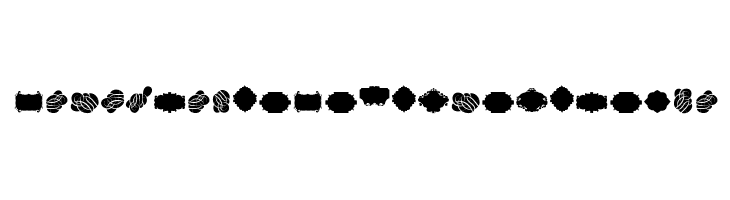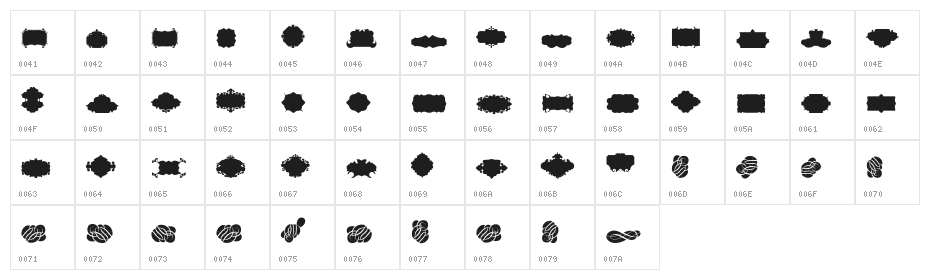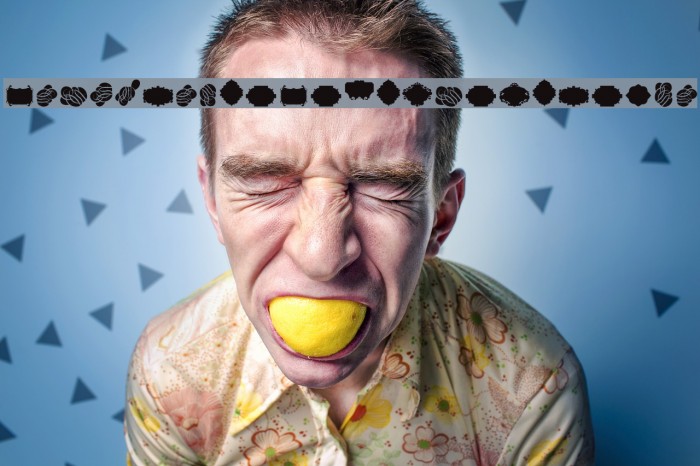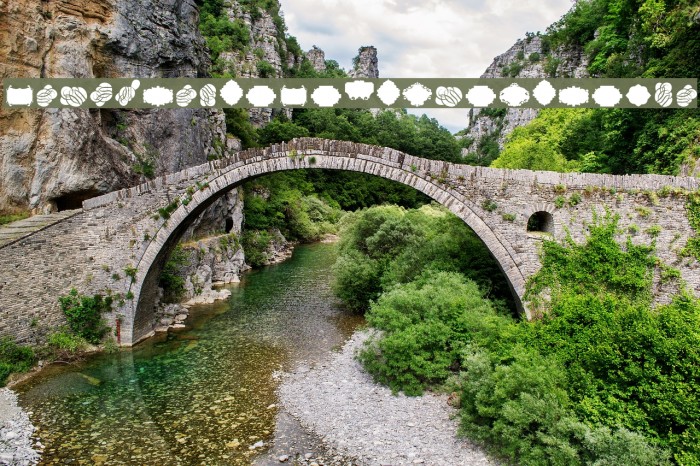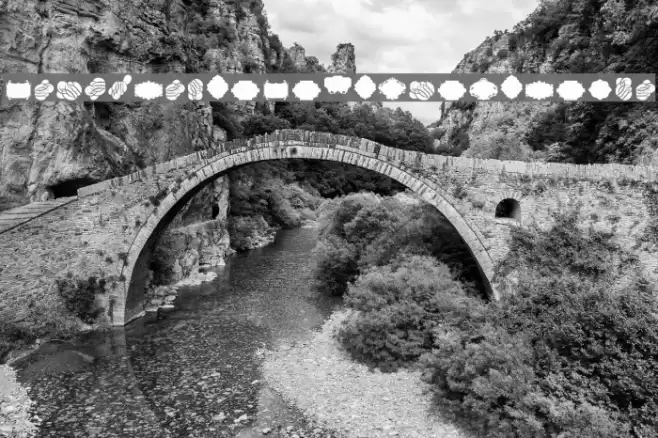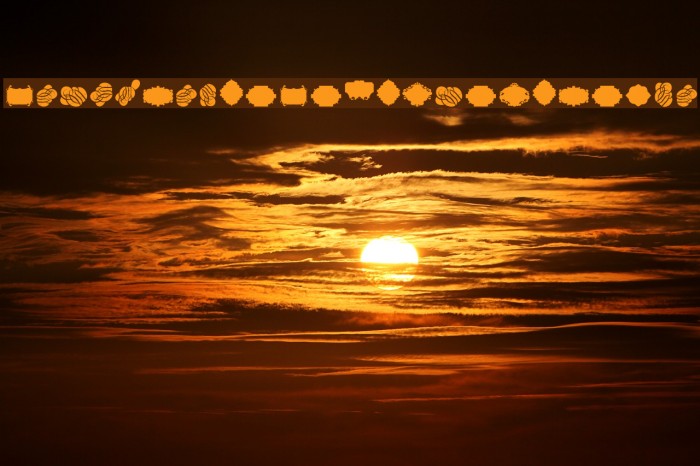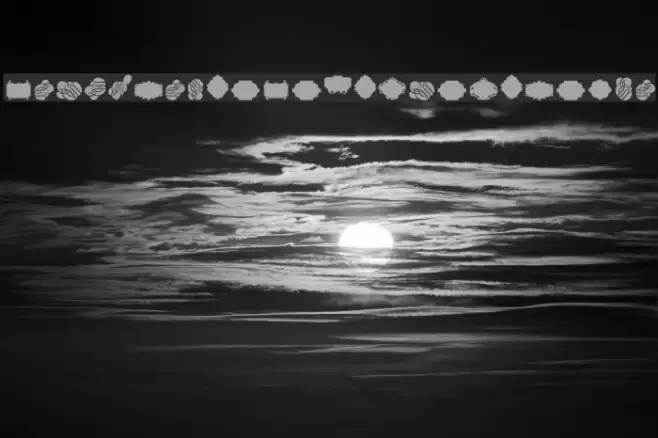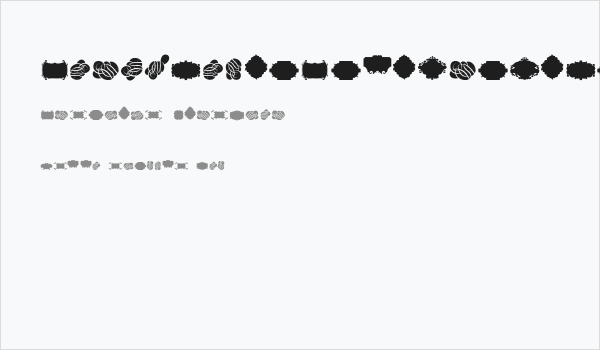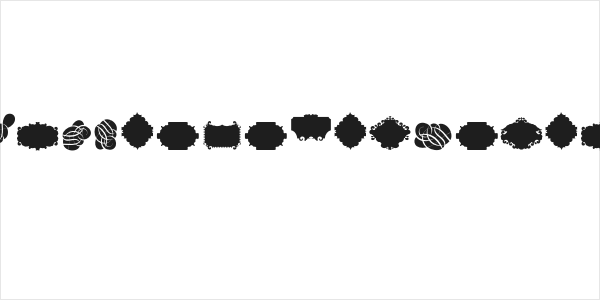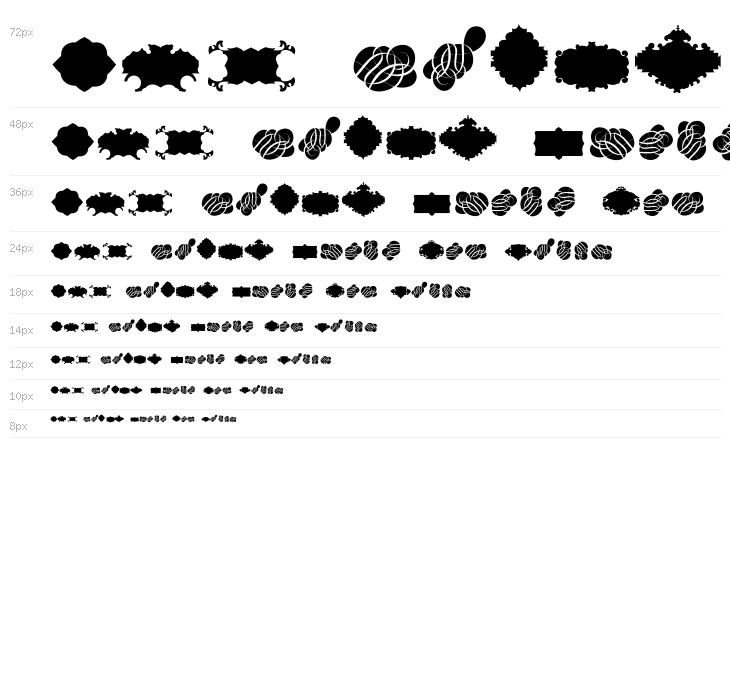
CornucopiaCaligraficaTwo Font
CornucopiaCaligraficaTwo Description
This collection of ornate, decorative shapes features intricate designs reminiscent of vintage calligraphic flourishes. Each character is a unique, complex silhouette with elaborate curves and embellishments, making them ideal for ornamental purposes. The shapes are bold and striking, with a high level of detail that suggests a handcrafted aesthetic. The overall style is reminiscent of historical or classical motifs, offering a sense of elegance and sophistication. These elements are perfect for adding a touch of grandeur to any design project, whether used individually or in combination.
Overall StyleVintage
Use CaseDecorative elements, artistic embellishments.
Proposed ProjectsIdeal for decorative borders, vintage-themed designs, invitations, and artistic embellishments.